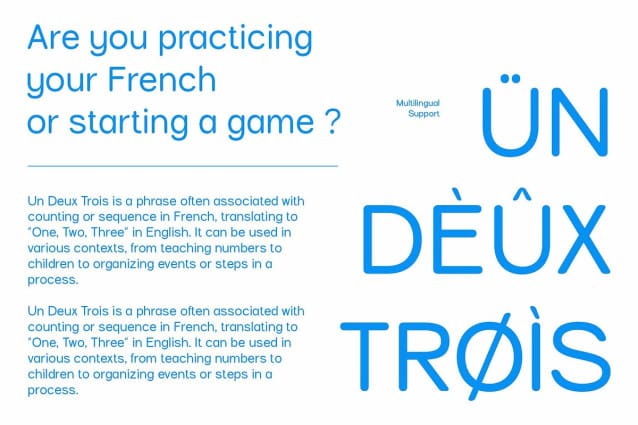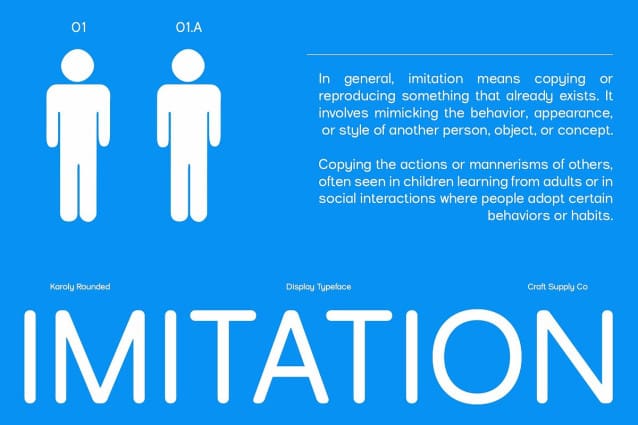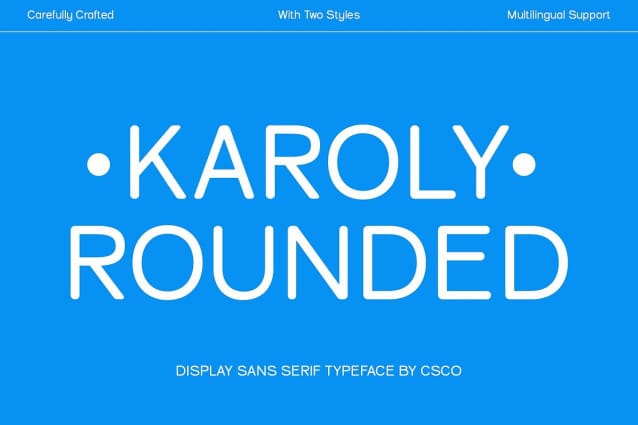
Karoly Rounded Font
Karoly Rounded Font is a modern sans-serif font that offers a distinctive blend of clean design and soft, curved edges. Its rounded shapes provide a friendly and approachable appearance while maintaining a high level of simplicity and readability.
Friendly and Approachable The rounded edges of Karoly Rounded give it a warm, welcoming feel, making it an excellent choice for designs that need to convey friendliness and approachability. The clean lines and minimalist form ensure that the font remains clear and effective across various applications.
Versatile Modern Aesthetic With its stylish yet familiar design, Karoly Rounded is ideal for a range of contemporary design projects. Whether you’re working on branding, user interfaces, or marketing materials, this font provides a professional and polished look that still feels inviting and accessible.
Professional with a Personal Touch Karoly Rounded strikes a balance between modern elegance and personal warmth, making it suitable for a wide array of modern design applications. Its clean lines and rounded forms ensure that it performs well in both digital and print media, delivering a sophisticated and engaging visual experience.
Ideal for Contemporary Designs Perfect for creating a modern and professional impression, Karoly Rounded combines a sleek aesthetic with a touch of warmth. This versatile font adapts effortlessly to various design needs, offering a polished look that maintains an approachable and friendly tone.